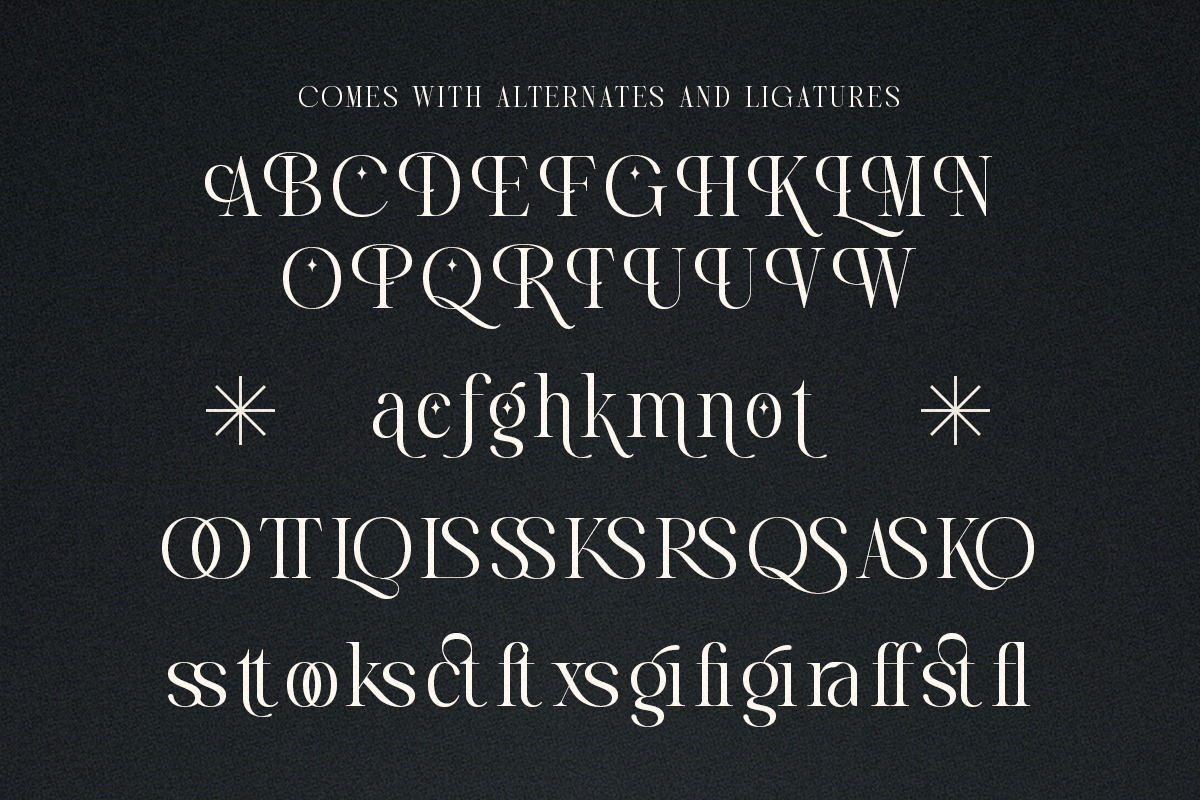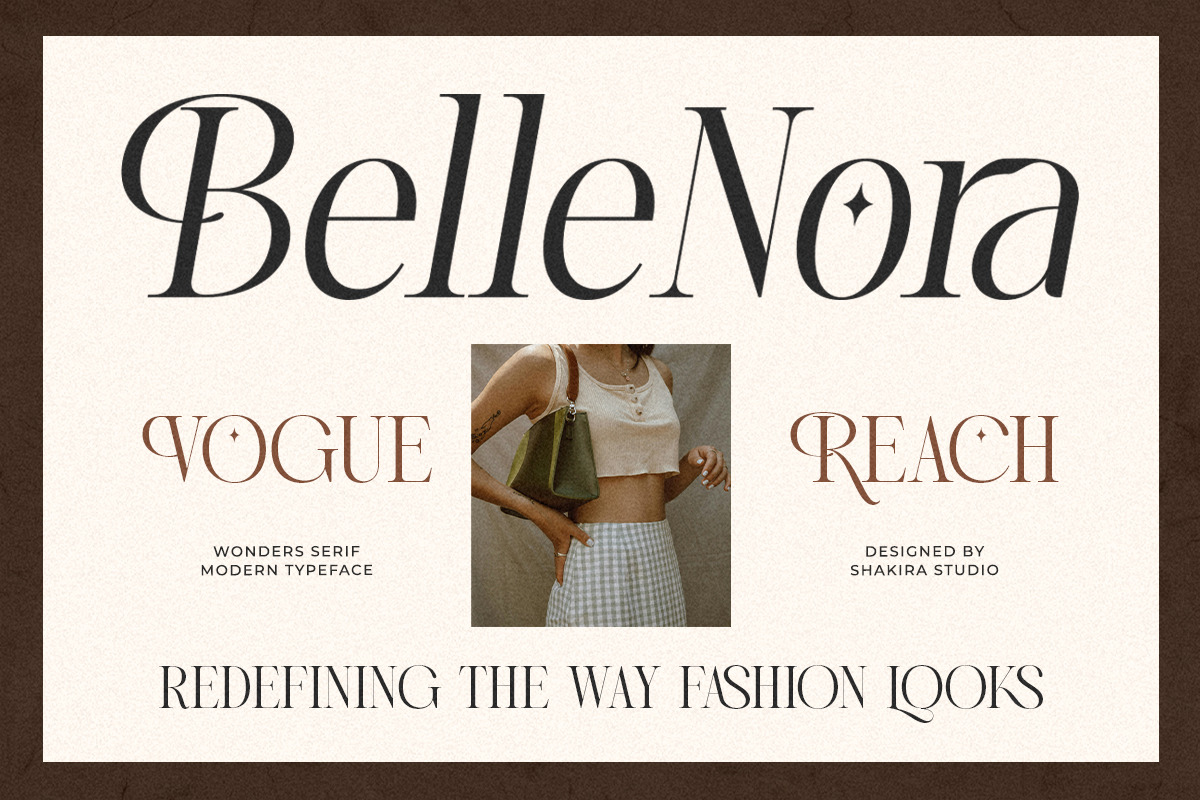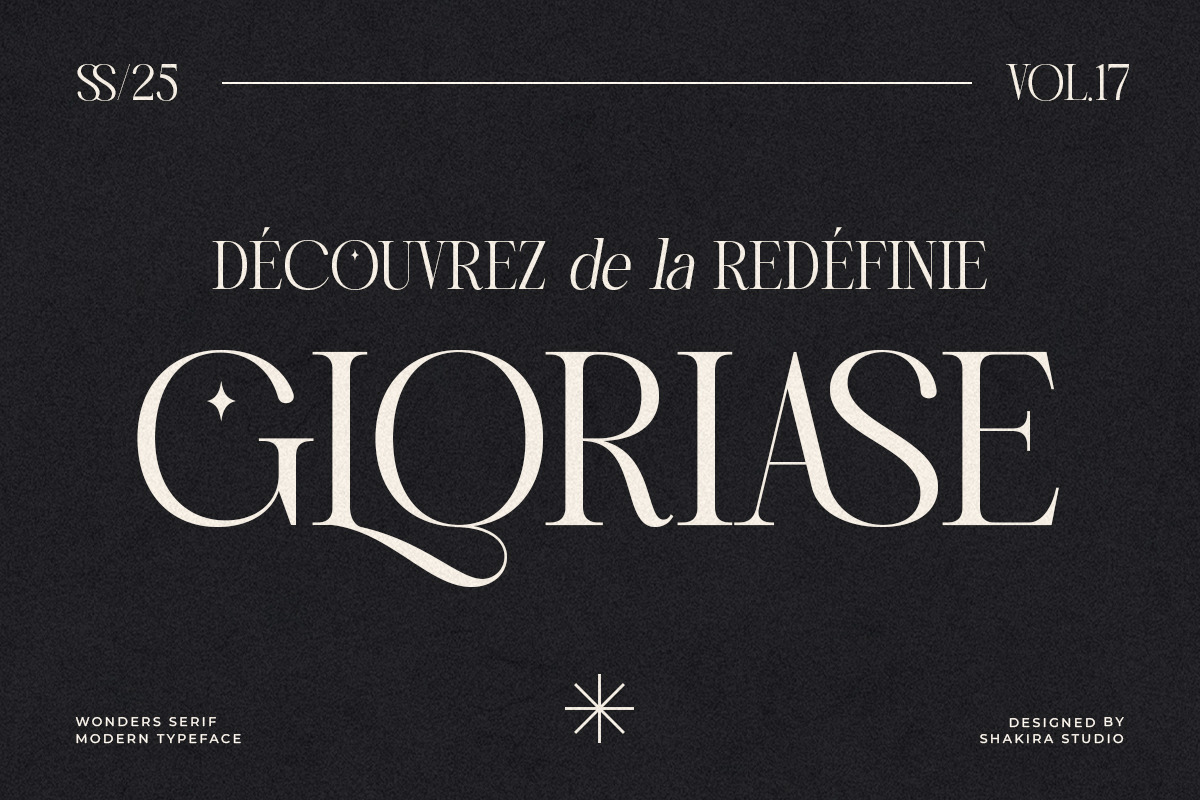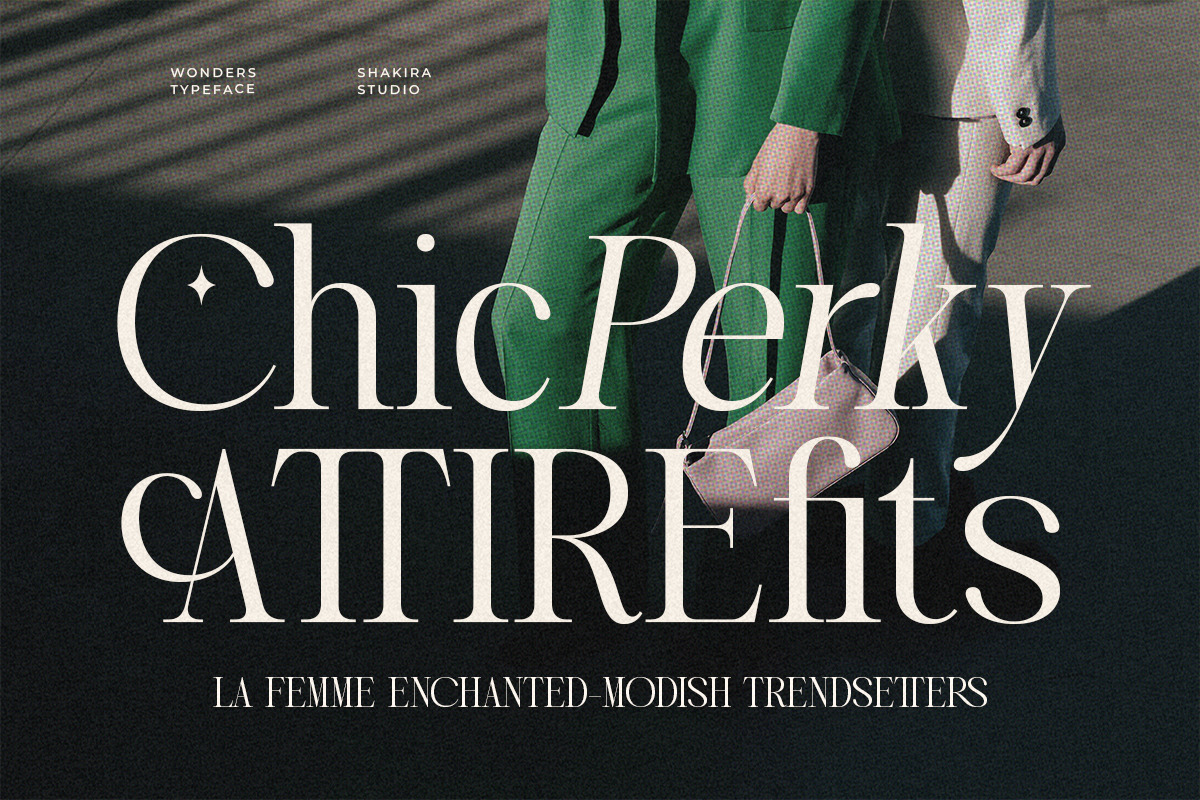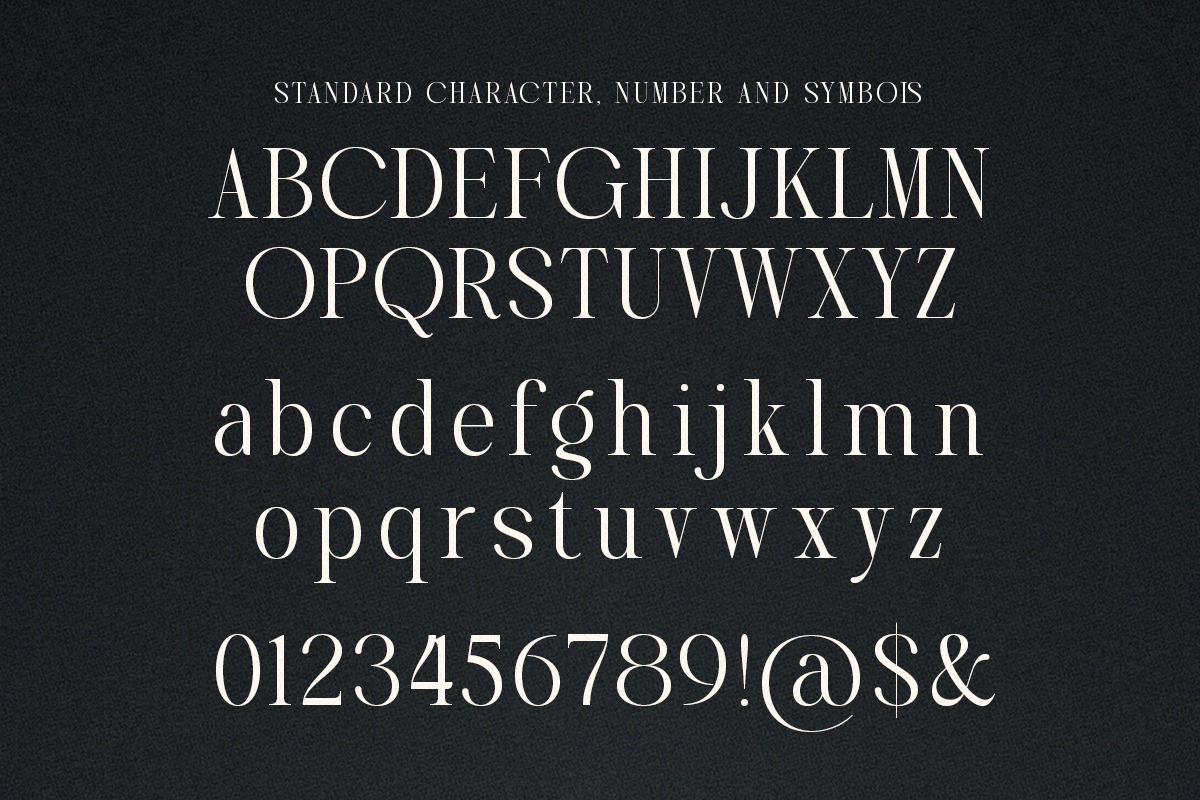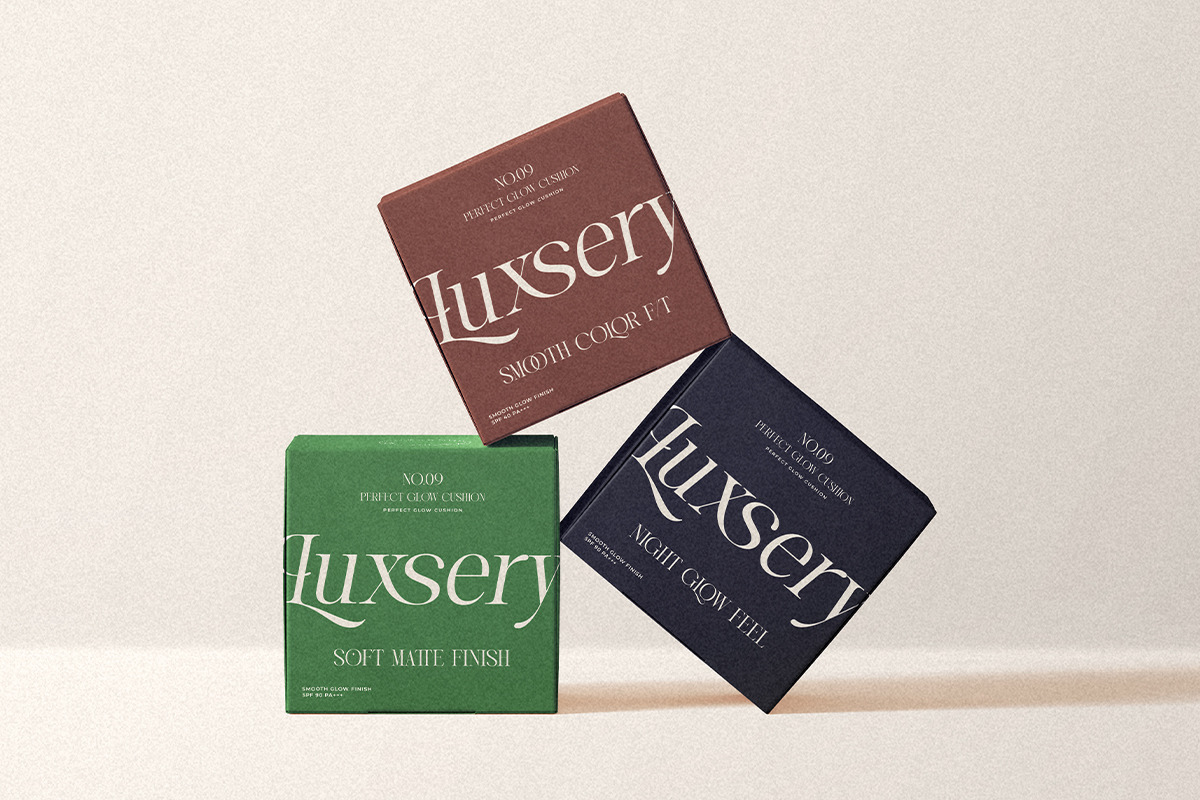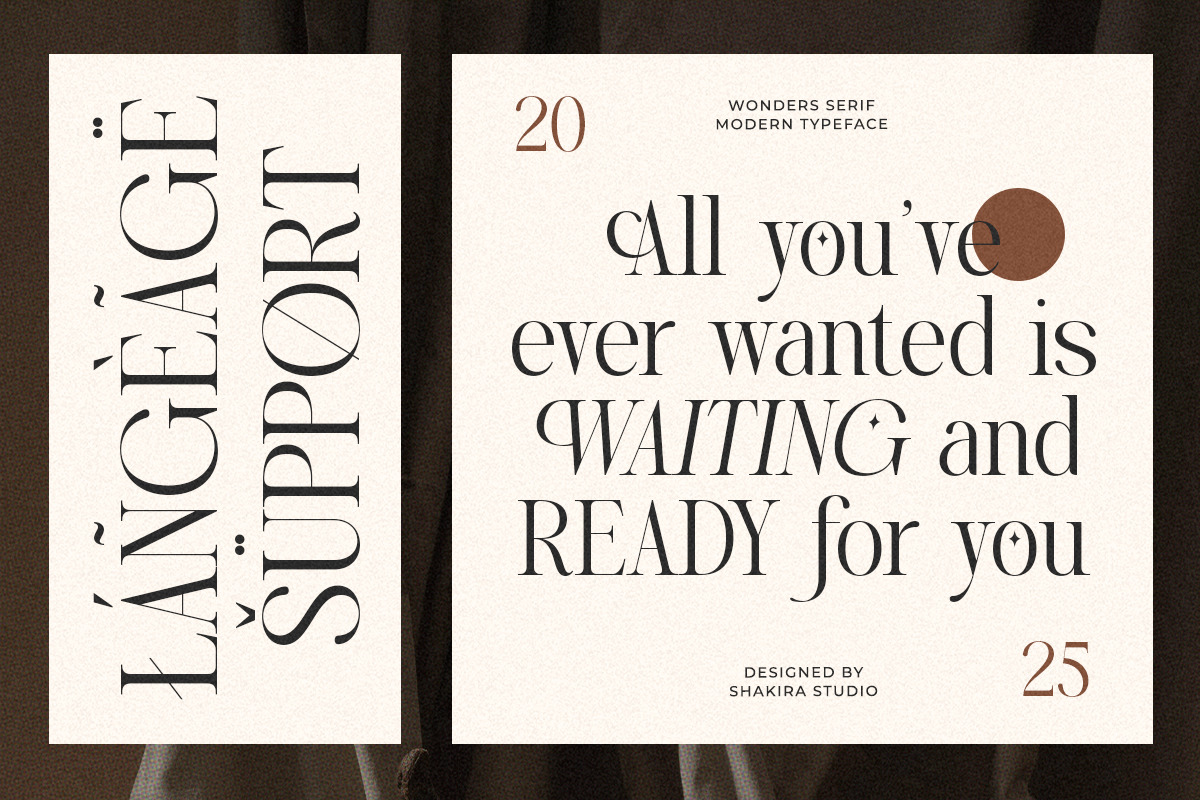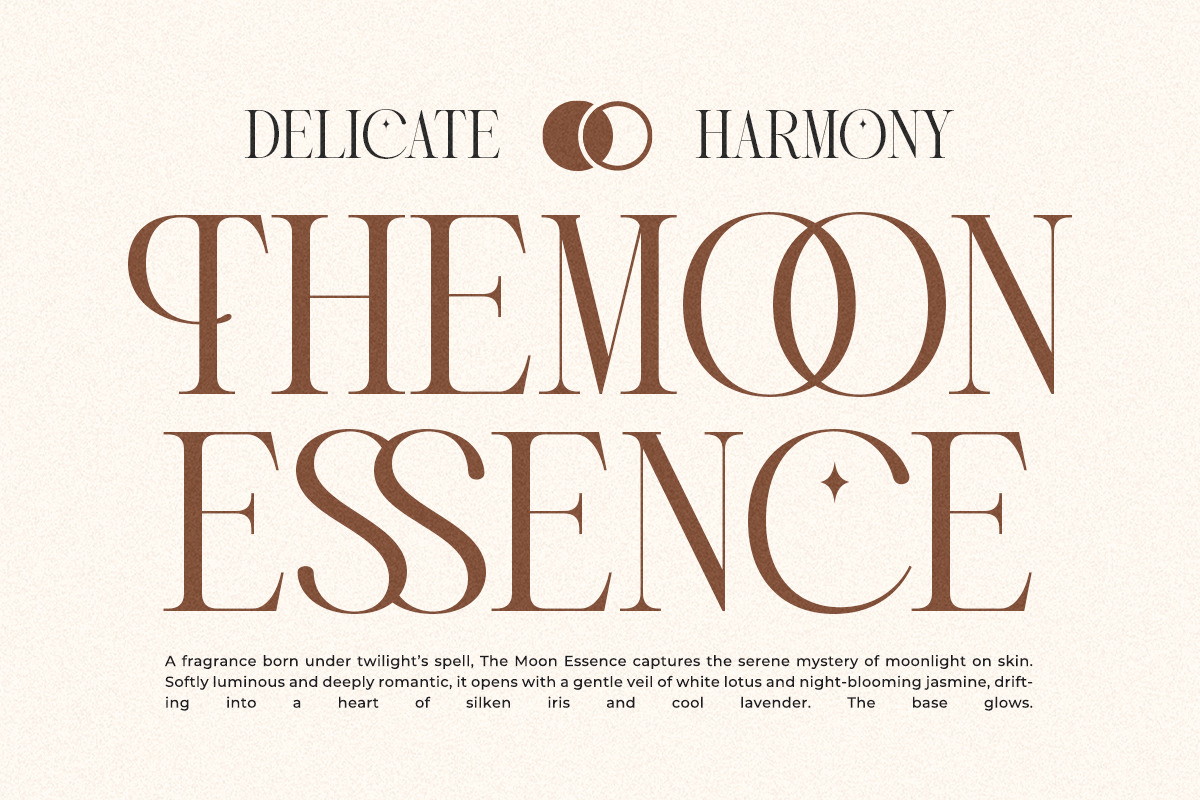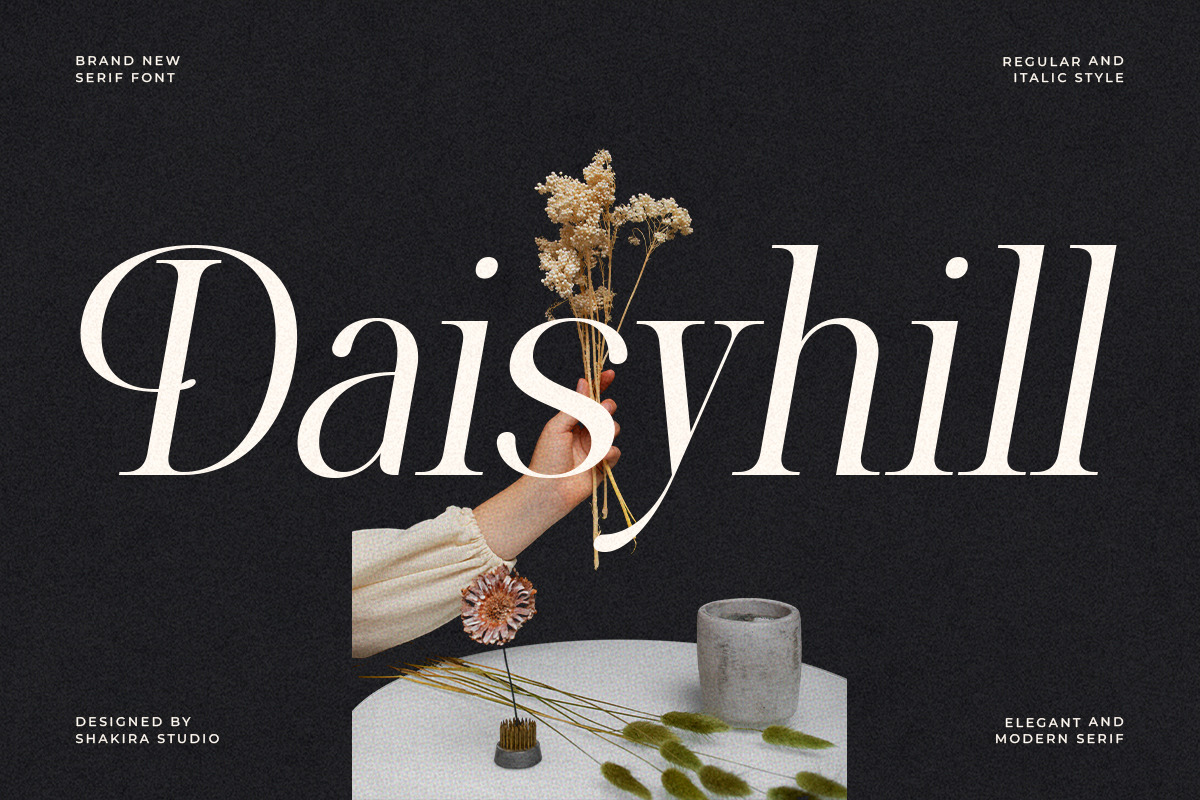
Wonders - Modern Elegant Luxury
Wonders is a true masterpiece of modern luxury serif design.
Crafted to elevate your projects with sophistication, clean lines, and timeless style, Wonders blends exquisite details with versatile functionality. Featuring refined ligatures and alternates, this typeface is perfect for high-end branding, fashion editorials, elegant packaging, and luxury design projects. Its graceful balance of modern aesthetics and classic flair makes Wonders a statement font for those who demand excellence.
- Regular & Italic style
- Elegant serif with refined ligatures
- Luxury alternates for versatility
- Fashion branding & editorials
- Luxury packaging & labels
- High-end logos & monograms
- Wedding invitations & stationery
- Magazines & books
- Elegant digital/print design
Elevate your creative work with timeless luxury.